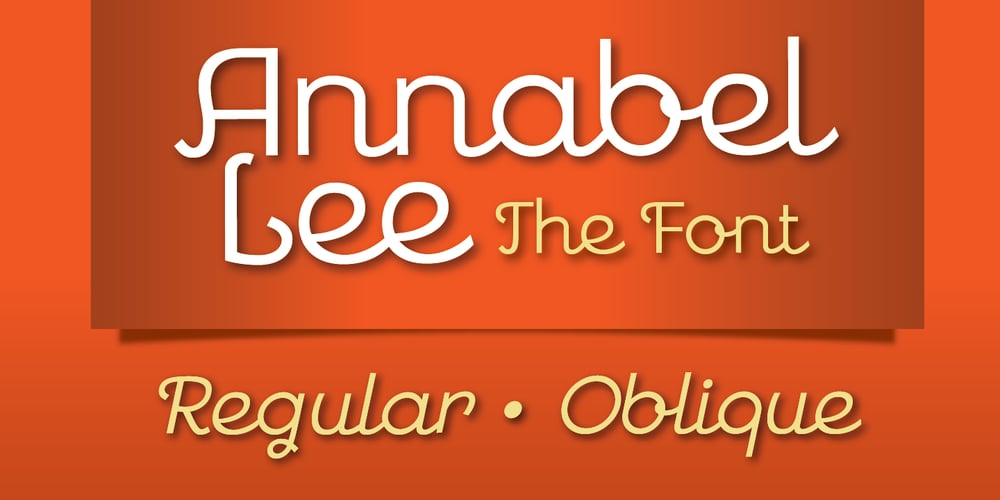
Annabel Lee Font Family was designed by John Nahmias and published by Jonahfonts. Annabel Lee contains 2 styles and family package options. A rounded-joined-script font, well suited for invitations and greeting cards.